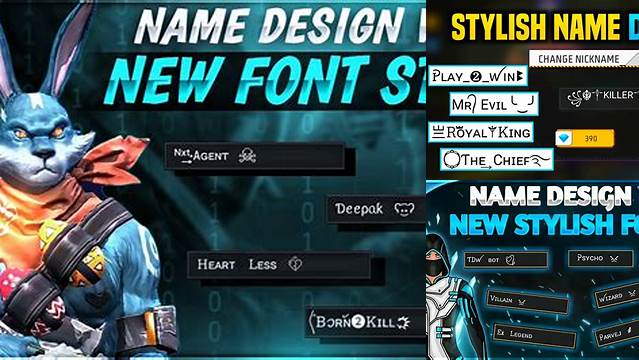
Free Fire Name Style Font 2026: Cool & Stylish Names
Hey guys! Want to make your Free Fire name stand out in 2026? You've come to the right place! In the ever-evolving world of online gaming, personalization is key. Your in-game name is your identity, your brand, and your first impression. A stylish and unique Free Fire name not only makes you look cool but also helps you get noticed by other players. In this article, we will dive deep into the world of Free Fire name styles and fonts, giving you the ultimate guide to creating a name that's as unique as your gameplay. We'll explore the significance of a great in-game name, the latest trends in fonts and styles, and how you can generate your very own personalized name using various tools and techniques. So, buckle up and get ready to level up your Free Fire persona!
The Significance of a Stylish Free Fire Name
Your Free Fire name is more than just a tag; it's a reflection of your personality and gaming style. Think of it as your digital signature in the virtual world. A well-crafted name can be memorable, intimidating, or even humorous, depending on the impression you want to create. When you have a stylish name, you're not just another player in the game; you're a brand. It's the first thing other players see, and it can influence how they perceive you, especially in team-based modes. A unique name can also boost your confidence. When you know you look good, you feel good, and that confidence can translate into better gameplay. Players are more likely to remember and recognize you if you have a catchy and stylish name. This recognition can be advantageous in various scenarios, such as forming teams or even gaining a reputation within the game. A stylish name can set you apart in a sea of generic usernames. It shows that you've put thought and effort into your online persona, which can be quite impressive to your peers and opponents alike. So, if you want to make a statement in Free Fire, investing time in creating a killer name is definitely worth it. It's not just about aesthetics; it's about crafting an identity that resonates with your style and personality.
Latest Trends in Free Fire Name Styles and Fonts for 2026
The world of Free Fire name styles is constantly evolving, with new trends emerging all the time. As we head into 2026, several styles and fonts are gaining popularity, and it's essential to stay updated to keep your name fresh and relevant. One of the biggest trends is the use of stylish fonts. Forget the basic, plain text; players are now opting for fonts that add flair and personality to their names. Cursive fonts, bold fonts, and even futuristic fonts are all the rage. Combining fonts with symbols and special characters is another trend that's going strong. Players are using symbols like stars, hearts, and even miniature weapons to add a unique touch to their names. These symbols can be placed strategically within the name to create visual interest and make it stand out. Another popular trend is the use of Unicode characters. Unicode allows you to use characters from different languages and alphabets, giving you a vast array of options to choose from. You can mix and match characters from Greek, Russian, or even Japanese alphabets to create a truly unique name. Short and catchy names are also making a comeback. In a world where attention spans are short, having a name that's easy to remember is a huge advantage. Players are opting for names that are concise, impactful, and easy to pronounce. Themed names are another trend to watch out for. Whether it's basing your name on your favorite anime character, a mythical creature, or a historical figure, themed names add a layer of depth and personality to your in-game persona. So, in 2026, expect to see a lot of creativity and innovation in Free Fire names. Staying updated with these trends will help you craft a name that's not only stylish but also relevant and impactful.
How to Generate Your Own Unique Free Fire Name
Creating a unique Free Fire name doesn't have to be a daunting task. With the right tools and techniques, you can come up with a name that perfectly reflects your style and personality. One of the easiest ways to generate a unique name is by using online name generators. There are several websites and apps specifically designed to create stylish Free Fire names. These generators allow you to input keywords, choose fonts, and add symbols to create a name that's tailored to your preferences. Simply enter a few details, and the generator will spit out a list of potential names. You can then tweak these suggestions to make them even more unique. Another effective technique is to mix and match words and phrases. Think about words that describe your gaming style, your personality, or your favorite things. Combine these words in creative ways to come up with a name that's both meaningful and memorable. For example, if you're a skilled sniper, you might consider names like "SilentSniper" or "HeadshotHero." If you're a team player, you could go for names like "TeamTitan" or "SquadSavior." Using symbols and special characters is a great way to add flair to your name. Many players incorporate symbols like stars, crosses, or even miniature weapon icons into their names. You can find these symbols using Unicode character maps or online symbol generators. Experiment with different combinations to see what looks best. Consider incorporating elements from your favorite games, movies, or books. This can add a personal touch to your name and make it more meaningful. If you're a fan of a particular character or story, you can use that as inspiration for your Free Fire name. Don't be afraid to think outside the box and get creative. The more unique your name is, the more likely it is to stand out. So, take your time, experiment with different ideas, and have fun with the process. With a little creativity and the right tools, you can generate a Free Fire name that's truly one-of-a-kind.
Tools and Websites for Free Fire Name Generation
In the quest for the perfect Free Fire name, you don't have to rely solely on your imagination. There are a plethora of tools and websites available online that can help you generate stylish and unique names. These resources offer a variety of features, from font customization to symbol integration, making the name-creation process a breeze. One of the most popular options is the Free Fire Name Generator websites. These sites typically offer a user-friendly interface where you can input keywords related to your desired name. The generator then uses these keywords to create a list of potential names, often incorporating stylish fonts and symbols. Some generators even allow you to preview how the name will look in the game, ensuring it meets your aesthetic preferences. Another fantastic tool is the Unicode character map. Unicode is a universal character encoding standard that includes a vast array of symbols and characters from different languages. By using a Unicode character map, you can find unique symbols and incorporate them into your Free Fire name. This is a great way to add a touch of individuality and make your name stand out. Many websites offer font customization tools that allow you to experiment with different fonts and styles. These tools often provide a preview of how the name will appear in various fonts, helping you choose the one that best suits your style. You can also adjust the size and spacing of the letters to further customize your name. Some online platforms even offer specialized Free Fire name generators that are tailored to the game's specific requirements and limitations. These generators often include features like automatic name validation, ensuring that your chosen name meets the game's naming conventions. Exploring these tools and websites can significantly streamline the name generation process, providing you with a wealth of options to choose from. Whether you're looking for a simple name or a complex, stylized one, these resources can help you craft the perfect Free Fire identity.
Tips for Choosing the Perfect Free Fire Name
Choosing the perfect Free Fire name is an art. It's about finding that sweet spot where your name reflects your personality, style, and gaming prowess. But with so many possibilities, how do you narrow it down and pick the absolute best? Let's dive into some tips that will help you craft a name that's not only cool but also memorable and impactful. First, consider your personality and gaming style. Are you a stealthy sniper, a fearless rusher, or a strategic team player? Your name should reflect these traits. For example, if you're a sniper, names like "SilentAim" or "HeadshotHunter" could be a perfect fit. If you're a team player, consider names like "SquadLeader" or "TeamTitan." Think about what makes you unique as a player and try to incorporate that into your name. Next, aim for memorability. A name that's easy to remember is more likely to stick in the minds of other players. Avoid overly complex or lengthy names that are difficult to spell or pronounce. Short, catchy names are often the most effective. Try to keep your name under 12 characters if possible. Another great tip is to use a combination of words, symbols, and fonts. This adds visual interest and makes your name stand out. Experiment with different fonts and Unicode characters to create a unique look. However, be mindful of readability. While a stylish font can look cool, make sure your name is still easy to read. Avoid using fonts that are too fancy or cluttered. It's also a good idea to check if your desired name is available. Before you get too attached to a particular name, make sure another player hasn't already claimed it. You can do this by searching for the name in the game or using a Free Fire name availability checker online. Finally, get feedback from your friends. Sometimes, a fresh perspective can help you see your name in a new light. Ask your friends what they think of your name ideas. They might offer valuable suggestions or point out potential issues that you hadn't considered. Choosing the perfect Free Fire name takes time and effort, but it's worth it. A well-crafted name can enhance your in-game persona and make you a more memorable player. So, take these tips to heart, let your creativity flow, and craft a name that's uniquely you.
Conclusion: Make Your Mark with a Stylish Free Fire Name in 2026
In conclusion, guys, your Free Fire name is more than just a label; it's your identity in the virtual world. A stylish and unique name can set you apart from the crowd, boost your confidence, and make you a more memorable player. As we move into 2026, the trends in Free Fire name styles are evolving, with a greater emphasis on creativity, personalization, and impact. By staying updated with these trends and utilizing the various tools and techniques available, you can craft a name that truly reflects your personality and gaming prowess. Remember, a well-chosen name can make a lasting impression. It's the first thing other players see, and it can influence how they perceive you. So, invest the time and effort to create a name that you're proud of. Whether you opt for a short and catchy name, a themed name, or a name that incorporates unique symbols and fonts, the key is to make it your own. Use the tips and resources we've discussed in this article to generate ideas, experiment with different styles, and find the perfect fit. Don't be afraid to think outside the box and let your creativity shine. And remember, the process of changing your Free Fire name is straightforward, so you can always update it if you feel like a change. So, go ahead and make your mark on the Free Fire battlefield with a stylish name that truly represents you. Get out there, dominate the game, and let your name speak volumes!